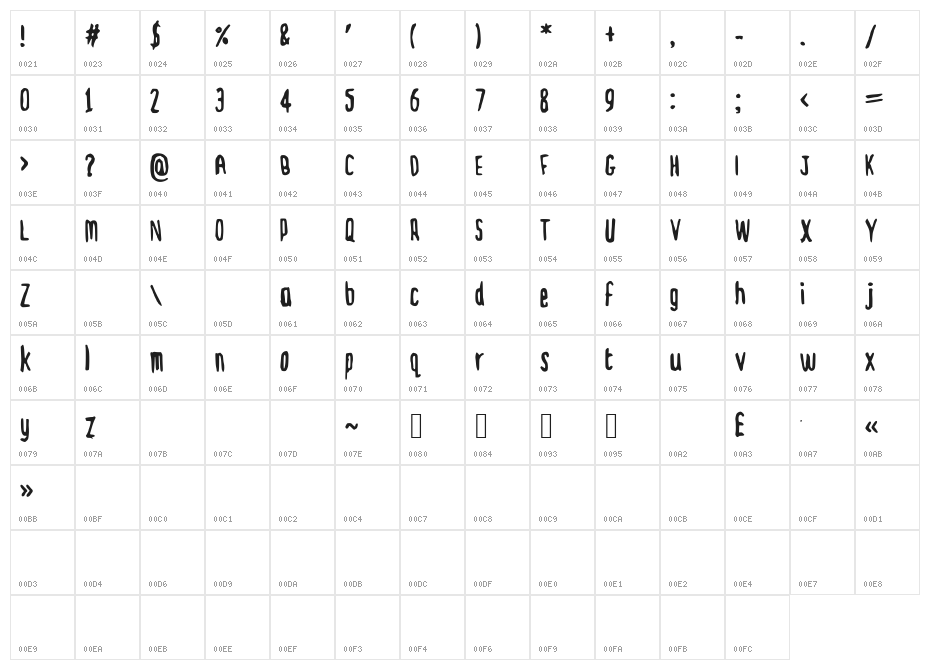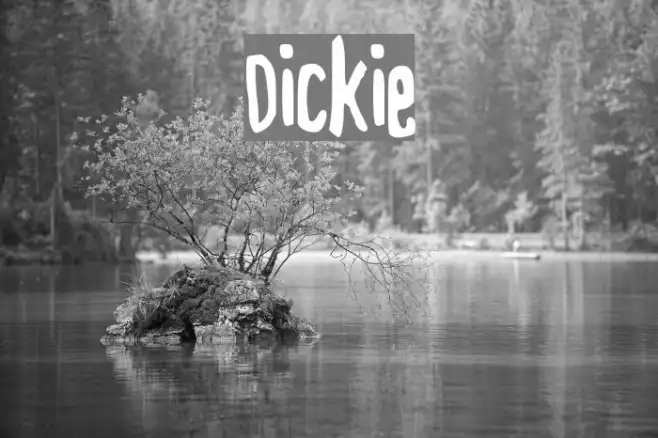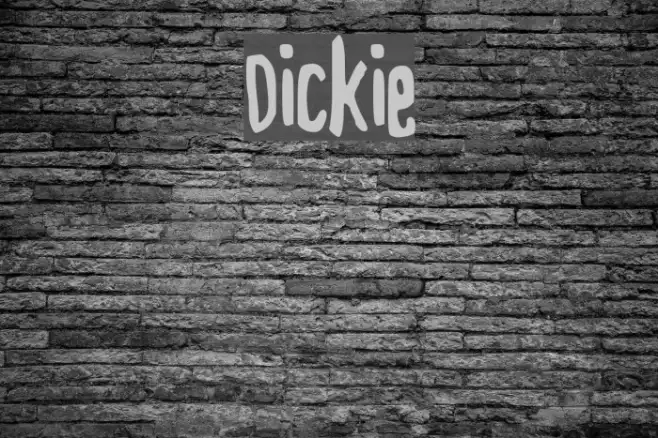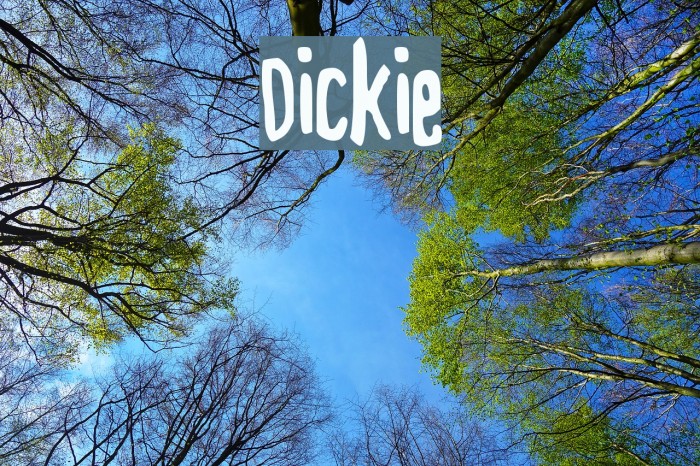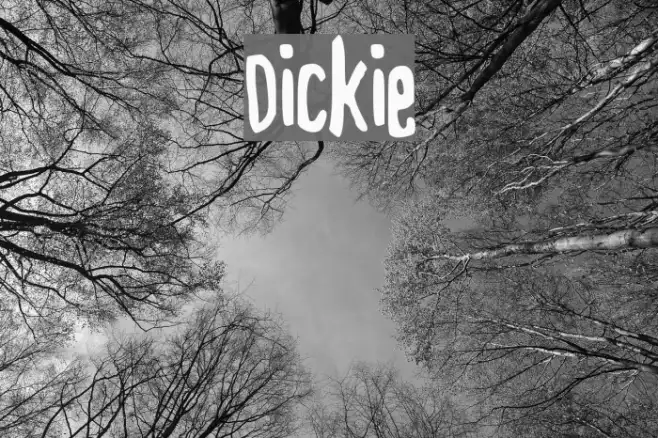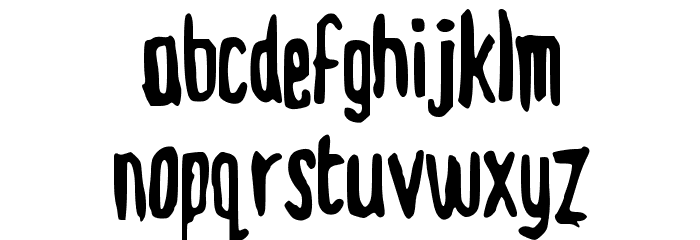
Dickie Font
Dickie Description
This font features a playful and slightly irregular design, characterized by its bold and rounded letterforms. The strokes vary in thickness, giving it a hand-drawn appearance that adds a whimsical touch. The uppercase and lowercase letters maintain a consistent style, with a slight slant that suggests movement. Numbers and special characters are designed to match the overall quirky aesthetic, making it suitable for creative and informal projects. The font's unique style makes it stand out, while still being legible and versatile.
| Proposed Projects | Ideal for children's books, playful branding, creative posters, and informal invitations. |